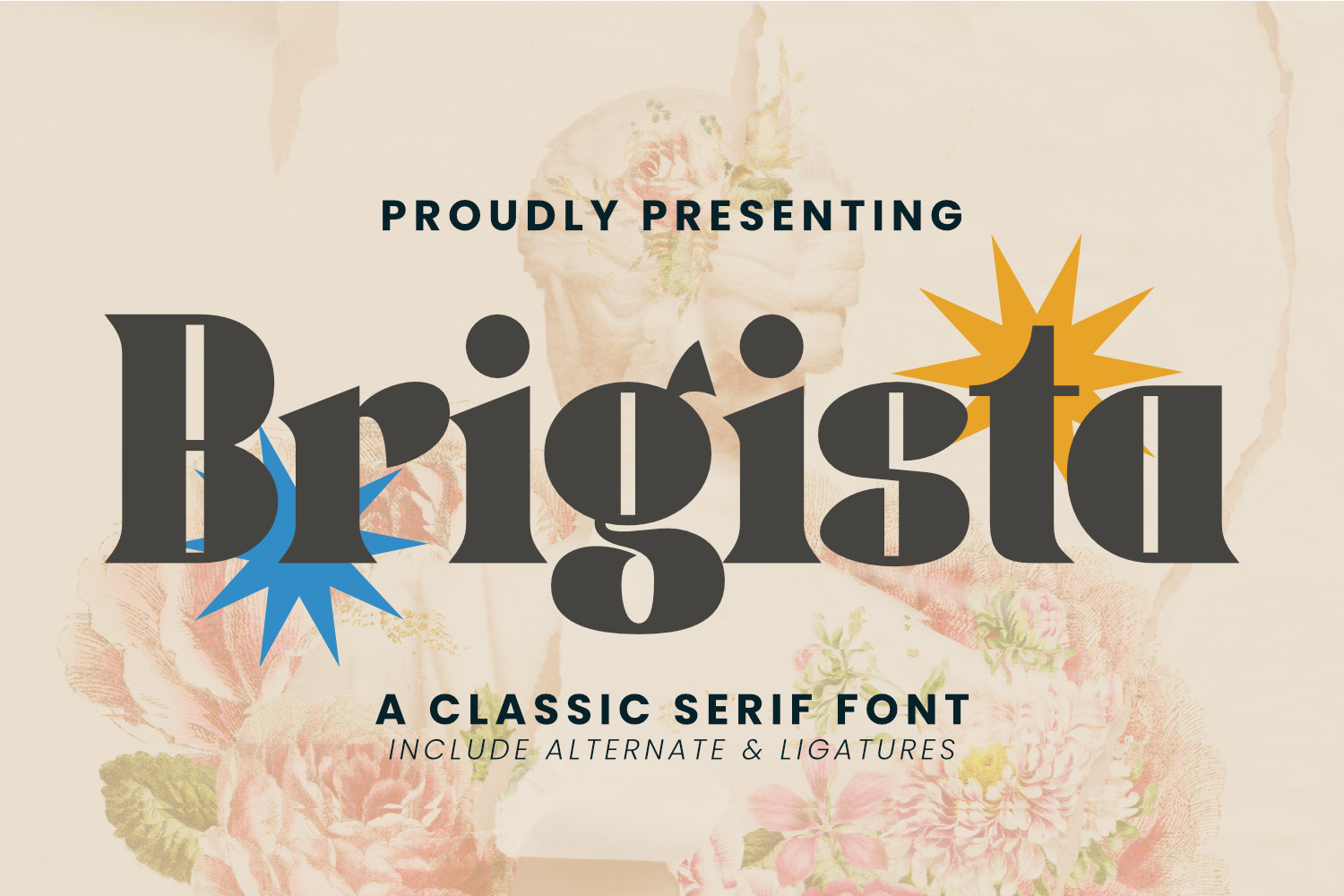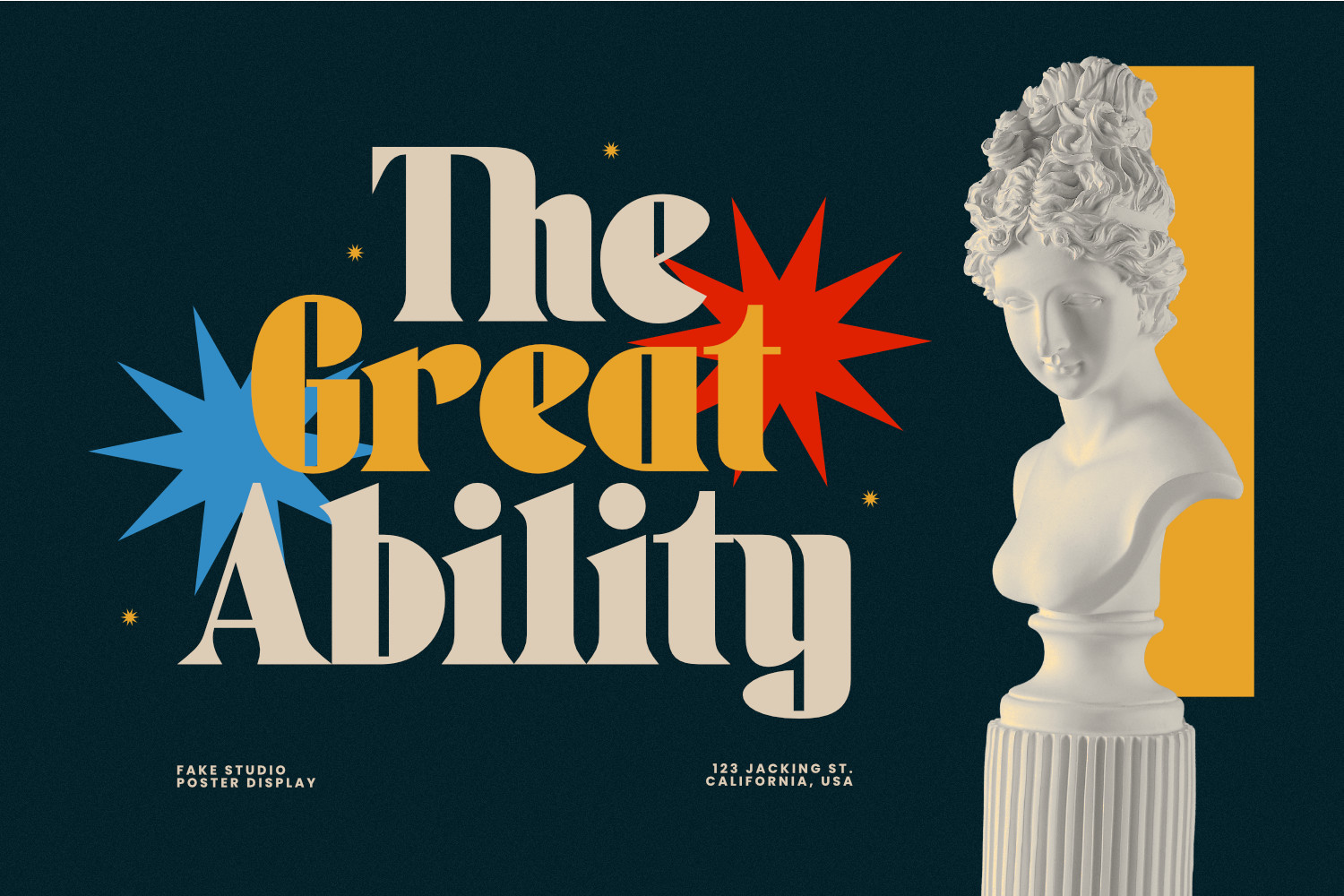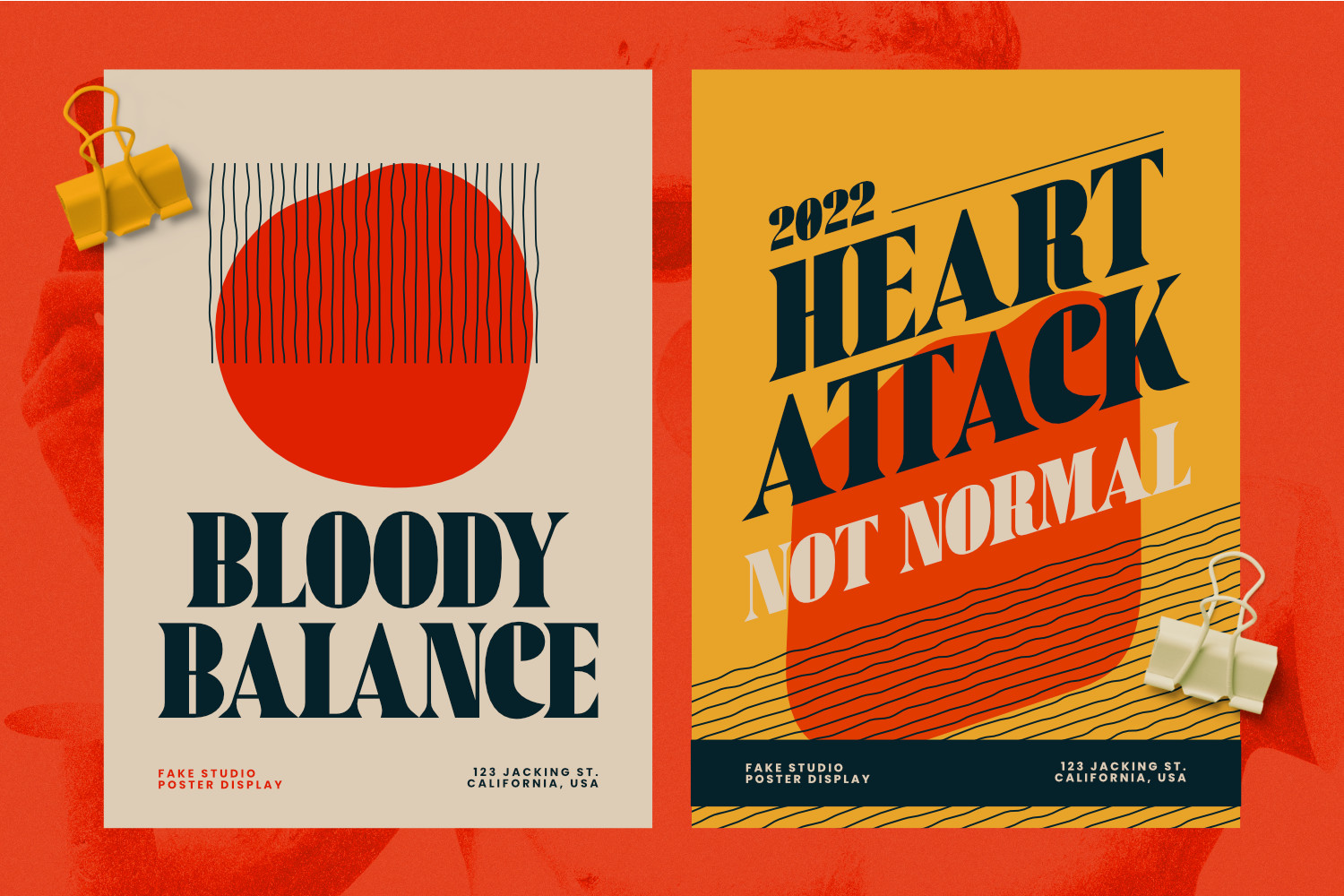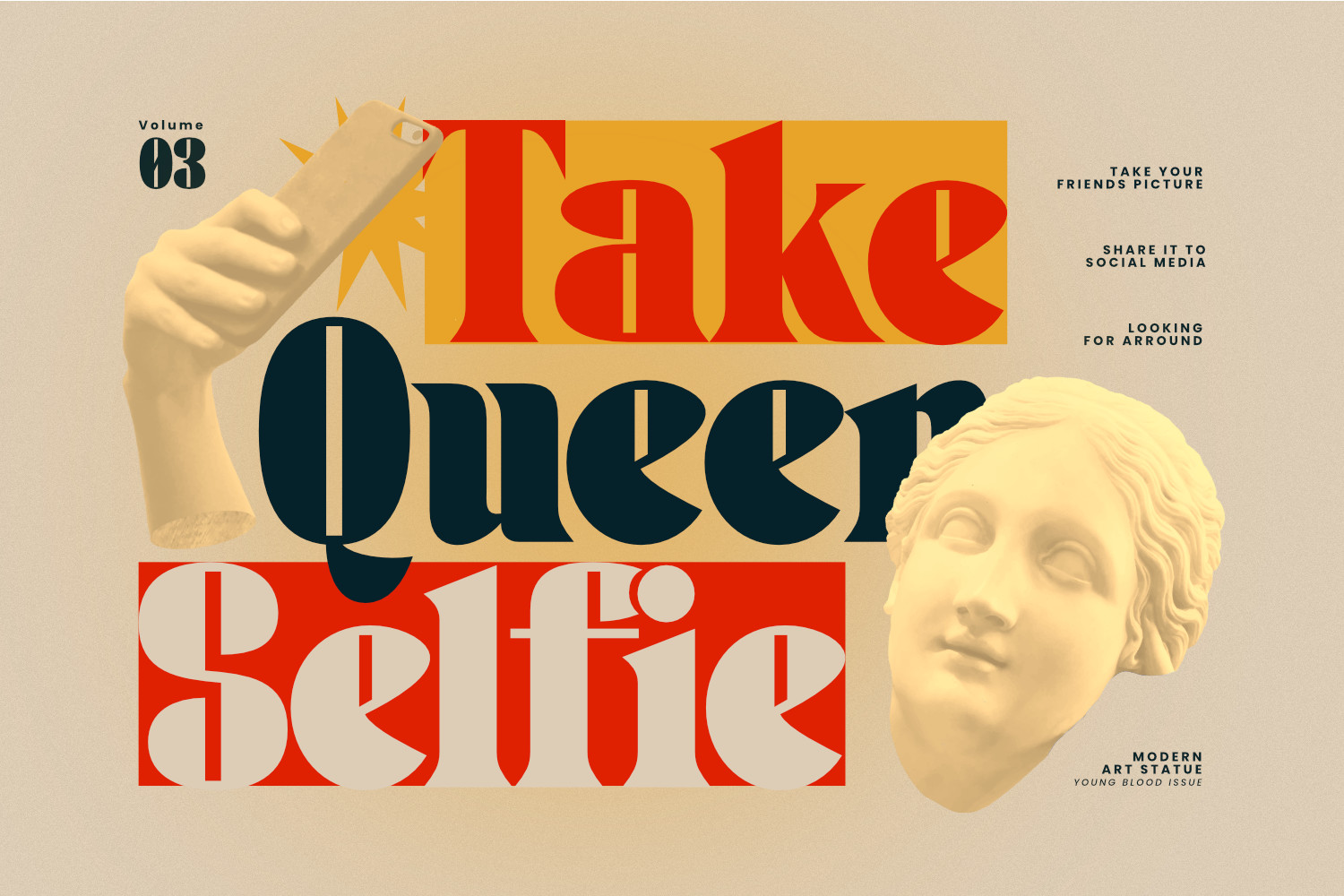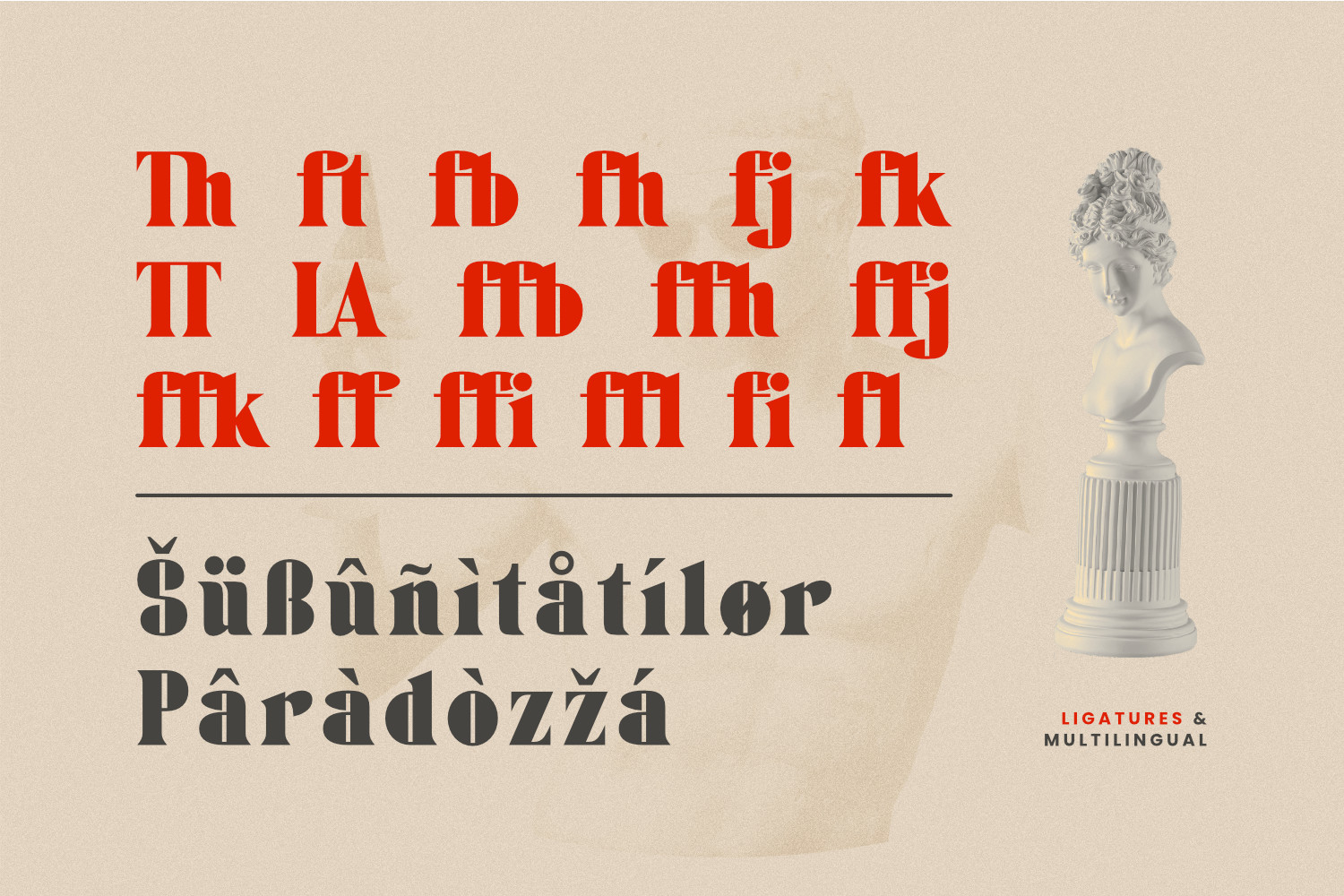
Brigista is a bold classic serif font with high contrast and sharp curves, evoking a sense of elegance with a modern twist. It features unique letterforms, dramatic alternates, and stylish ligatures that elevate your typographic compositions to a luxurious level. Perfect for headlines, editorial designs, and branding, Brigista seamlessly blends vintage aesthetics with contemporary appeal.
With multilingual support and a complete character set, Brigista is crafted for designers who demand both beauty and functionality. Whether you’re designing a fashion magazine, poster, or product packaging, this font ensures every word makes a bold statement with refinement and confidence.
Brigista